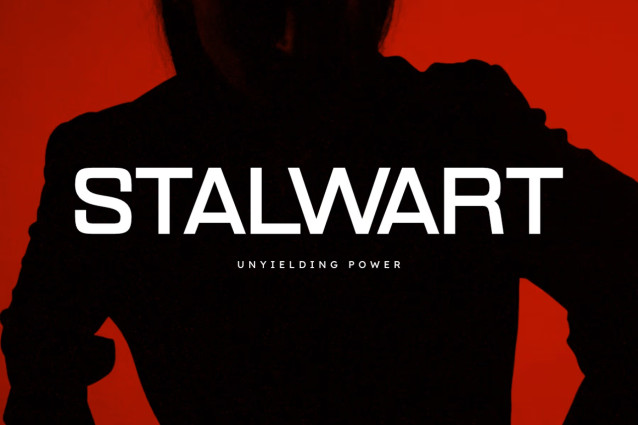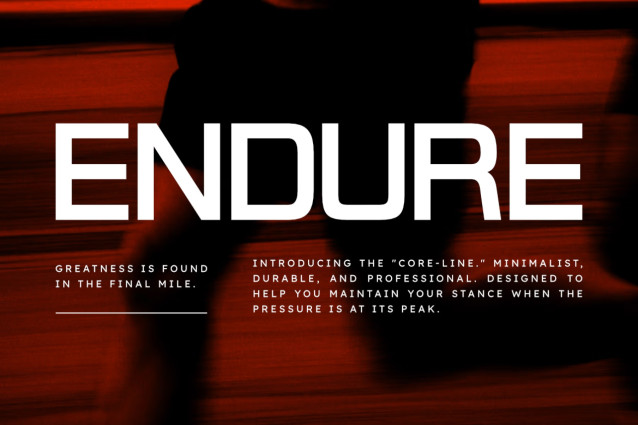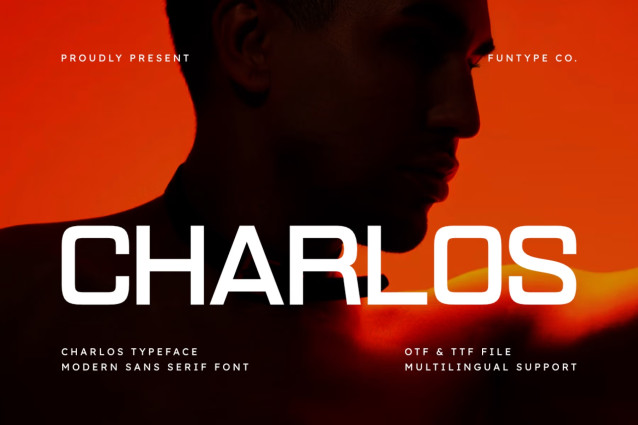
Charlos Font
Charlos is a sleek and commanding modern sans serif font designed for high-impact and precise branding typography. Featuring a wide geometric structure and smooth rounded-edge accents, this font is perfect for strong headlines, professional sports logos, technology product packaging, and modern digital posters.